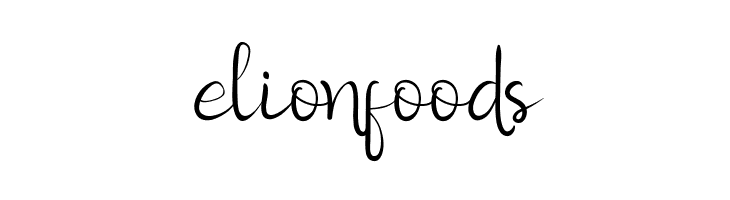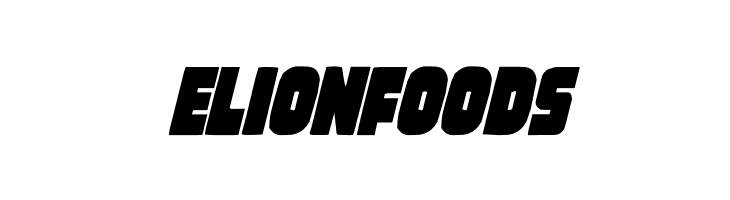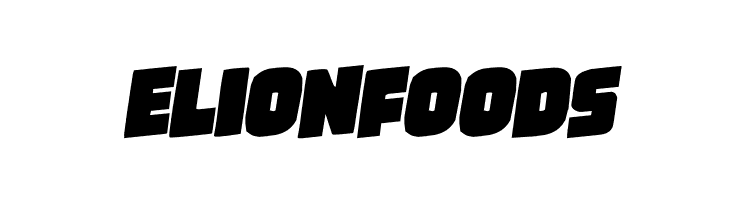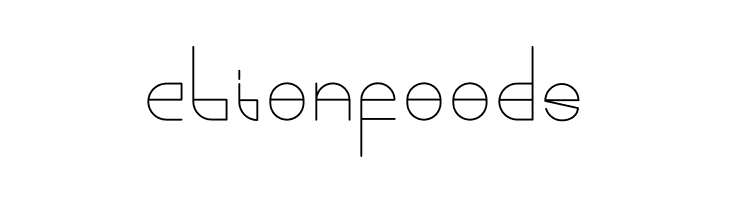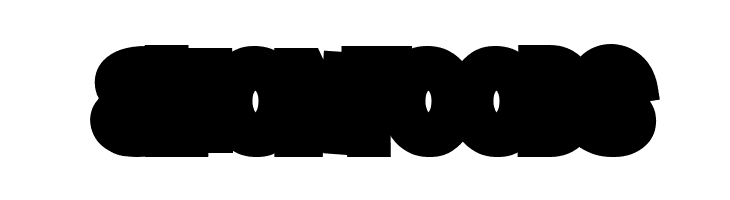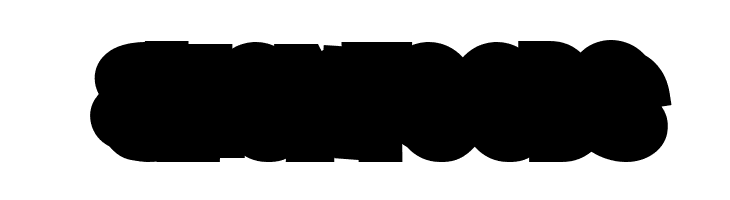
A bold, textured font with a rugged, distressed appearance.
A bold, geometric outline font with a modern and futuristic style.
A modern, geometric sans-serif font with uniform strokes and clear readability.
A decorative snowflake dingbat font with diverse, detailed snowflake icons.
A bold, playful font with rounded edges and a whimsical style.
A playful, textured font with fuzzy edges and a dynamic appearance.
A bold, hand-drawn font with an artistic and dynamic style.
A decorative font with Christmas-themed icons for festive projects.
A modern, ultra-thin, elongated font with a sleek and elegant style.
A tall, slender, and modern font with thin strokes and a cohesive design.
A bold, dynamic script font with a handwritten, fluid style.
A bold, dynamic script font with a modern and energetic style.
A bold, dynamic script font with a sense of motion and elegance.
A modern, italic font with sharp angles and a dynamic, fluid style.
A modern, geometric font with sharp angles and a futuristic style.
A modern, geometric font with angular and futuristic design elements.
A playful, handwritten font with a casual and informal style.
A bold, hand-painted style font with dynamic, textured strokes.
A bold, dynamic font with a forward-leaning slant and three-dimensional effect.
A bold, geometric font with a dotted interior and thick outlines.
A sleek, modern sans-serif font with a light, italic style.
A bold, geometric font with rounded edges and a playful, modern style.
A sophisticated handwritten font with fluid, continuous strokes and a modern elegance.
A bold, hollow font with playful, angular characters and a dynamic style.
A bold, playful font with irregular, cartoonish shapes and thick strokes.
A bold, italic font with a dynamic, geometric design.
A bold, inverse-style font with geometric, rounded characters.
A whimsical and elegant cursive font with flowing, graceful strokes.
A bold, dotted font with a playful, digital appearance.
A bold and italic font with strong, slanted letterforms and a modern, expressive style.
A bold, rugged font with a distressed, ancient script style.
A bold, geometric font with angular, arrow-like elements for a dynamic look.
A bold, angular font with a modern, geometric style.